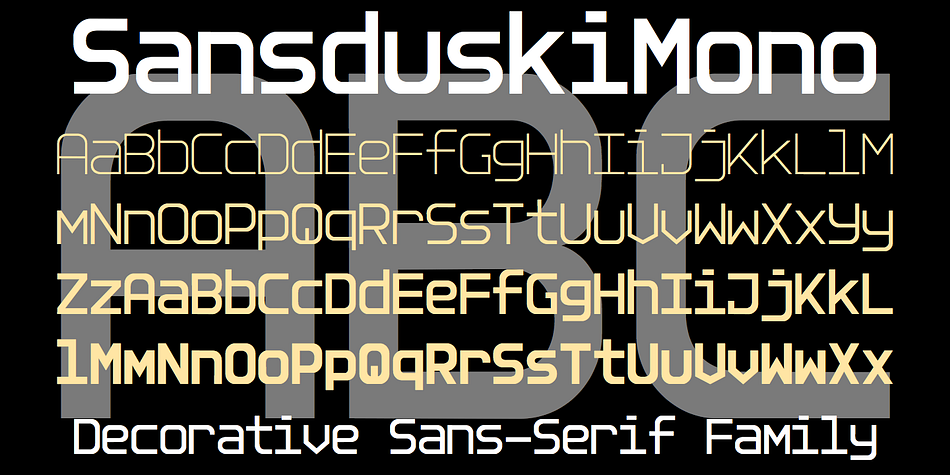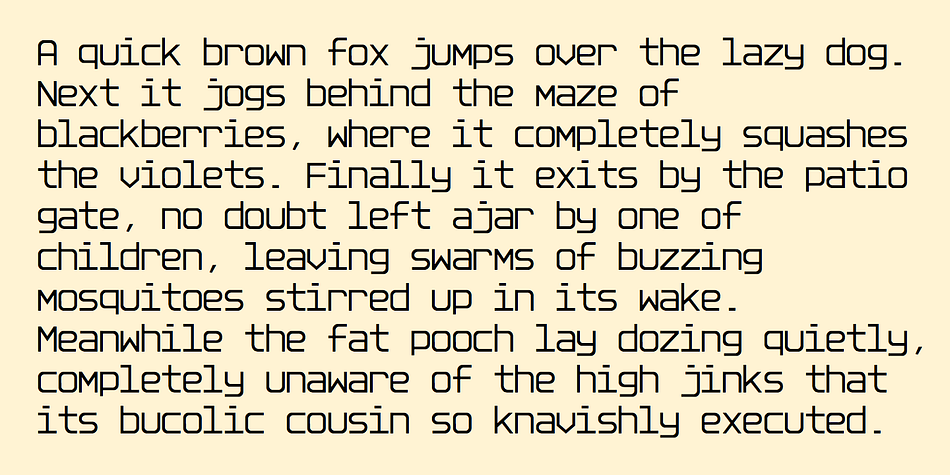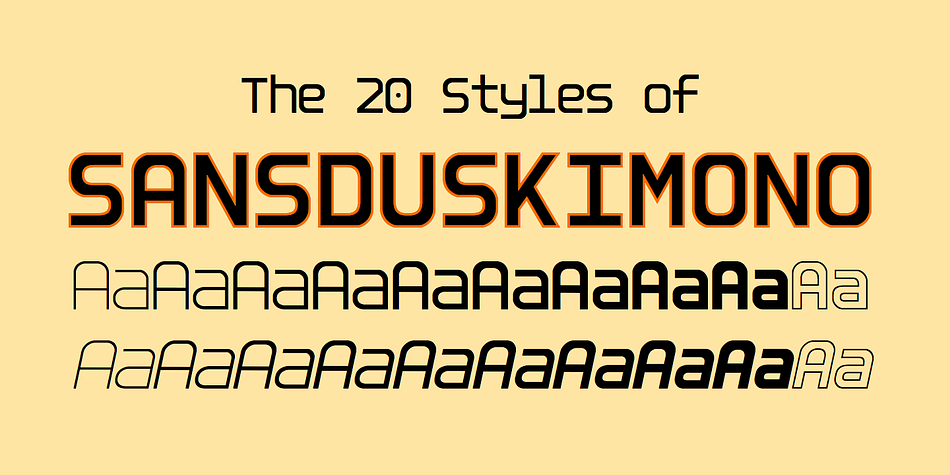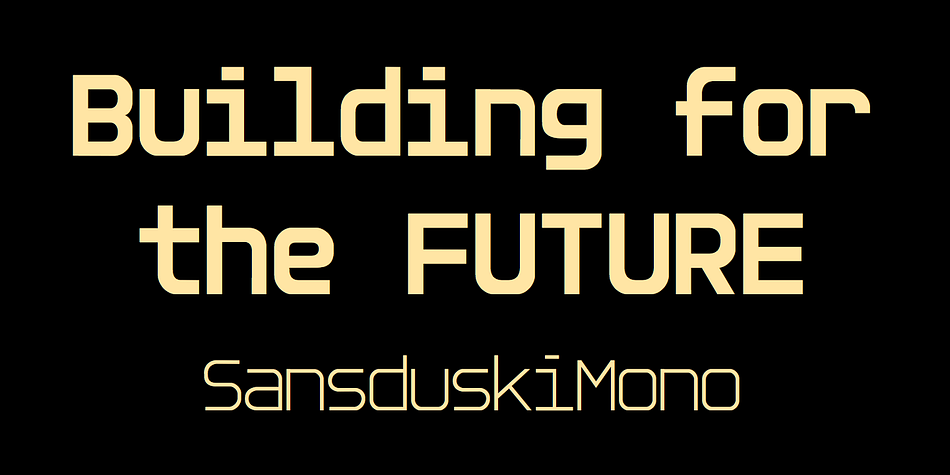
Designed by Robert Schenk, SansduskiMono is a sans serif font family. This typeface has twenty styles and was published by Ingrimayne Type.
SansduskiMono is a sans-serif decorative/display family that is monospaced. Its very high x-height and tight spacing make it more suitable for use at large point sizes than small point sizes. (There are better options if one wants a readable text font.)
The letter O is a rectangle with rounded corners and this shape motif is carried over to other characters that are usually rounded. The origin of this face is in a previous typeface, BigStripesMono. That family was designed to use the OpenType feature Contextual Alternatives (calt) to put stripes on letters. It had only upper-case letters in one weight. SansduskiMono adds lower-case letters and eight more weights plus italics and outline styles for the black weights. For a proportional rather than monospaced version of this design idea, see Sansduski.
SansduskiMono is appropriate for titles, posters, advertising, and other uses that benefit from simple letter forms that are geometric and clean.
Foundry | Ingrimayne Type |
Designer | Robert Schenk |